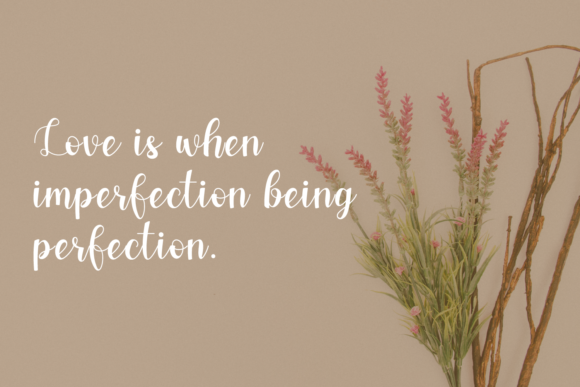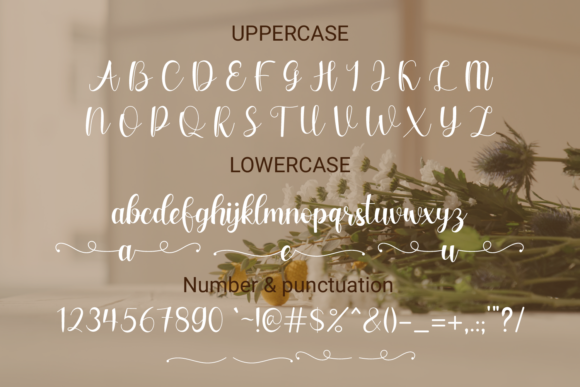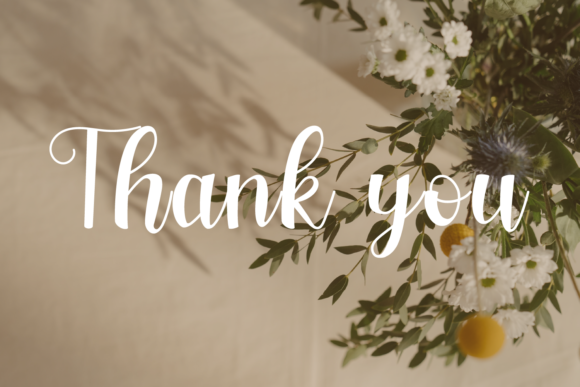
Introducing Falina Sweet Font: The Ultimate Handwritten Font for Elegant Designs
Are you a designer or crafter looking for a font that can add a touch of elegance and sophistication to your designs? Look no further than Falina Sweet Font, an incredibly distinct, delicate, and timeless handwritten font that is perfect for a wide range of design projects.
What Makes Falina Sweet Font So Special?
Falina Sweet Font is a unique and beautiful handwritten font that is sure to make your designs stand out. Its delicate and elegant strokes make it perfect for designs that require a touch of sophistication and refinement. Whether you’re creating wedding invitations, thank you cards, quotes, greeting cards, logos, business cards, or any other design that needs a handwritten touch, Falina Sweet Font is the perfect choice.
Wedding planners, event designers, and stationery enthusiasts will love Falina Sweet Font for its romantic and whimsical feel. The font’s elegant strokes and delicate curves make it perfect for creating beautiful wedding invitations, save-the-date cards, and other event-related designs. You can also use it to create stunning thank you cards, place cards, and other stationery items that require a personal touch.
Great for Logos and Branding
Falina Sweet Font is not just limited to event designs; it’s also perfect for creating logos and branding materials. The font’s unique and distinctive style makes it ideal for businesses that want to stand out from the crowd. Whether you’re creating a logo, business card, or letterhead, Falina Sweet Font is sure to make your brand look elegant and sophisticated.
Tips for Using Falina Sweet Font
Here are a few tips for using Falina Sweet Font in your designs:
• Use it for headlines and titles: Falina Sweet Font is perfect for creating eye-catching headlines and titles. Its elegant strokes and delicate curves make it easy to read and understand.
• Pair it with other fonts: Falina Sweet Font works well with other fonts, especially sans-serif fonts. Try pairing it with a clean and simple font to create a beautiful contrast.
• Experiment with colors: Falina Sweet Font looks great in a range of colors, from soft pastels to rich jewel tones. Experiment with different colors to find the one that works best for your design.
Falina Sweet Font is a beautiful and elegant handwritten font that is perfect for designers and crafters who want to add a touch of sophistication to their designs. Its delicate strokes and unique style make it ideal for a wide range of design projects, from wedding invitations to logos and branding materials. With its ease of use and customization options, Falina Sweet Font is a must-have font for any designer or crafter looking to create stunning designs.